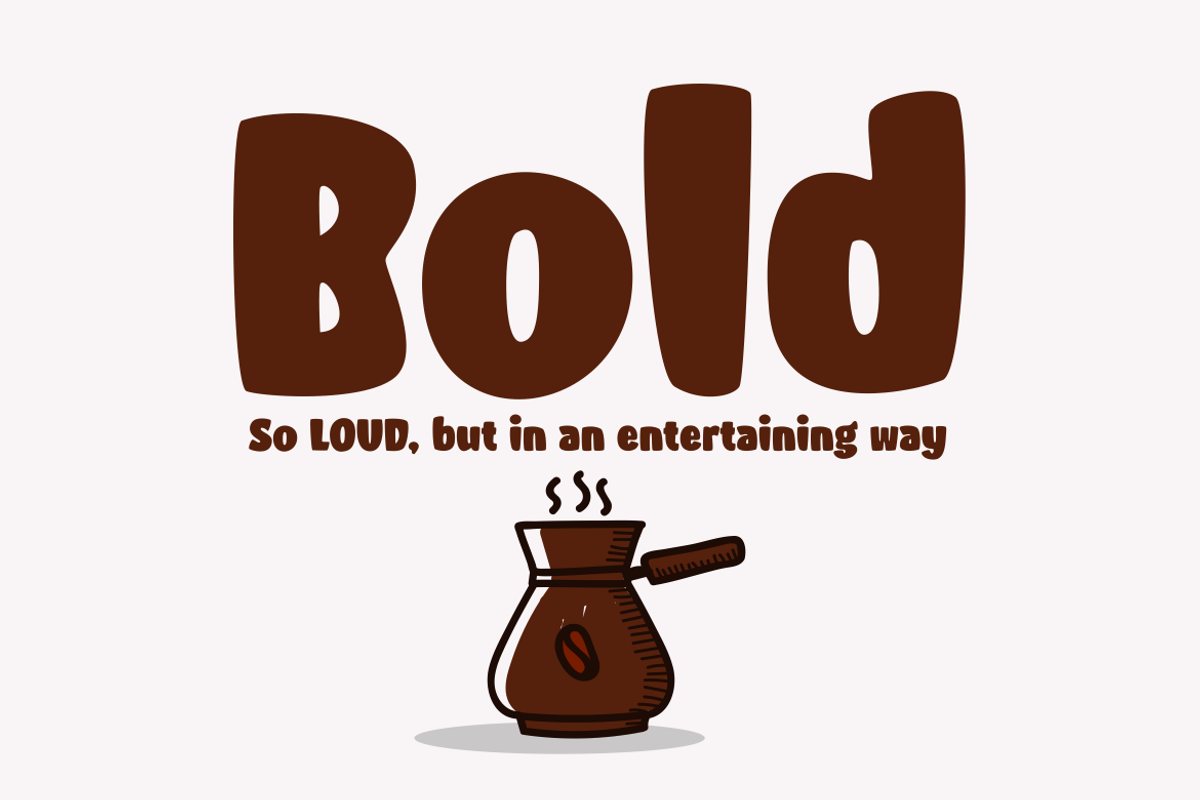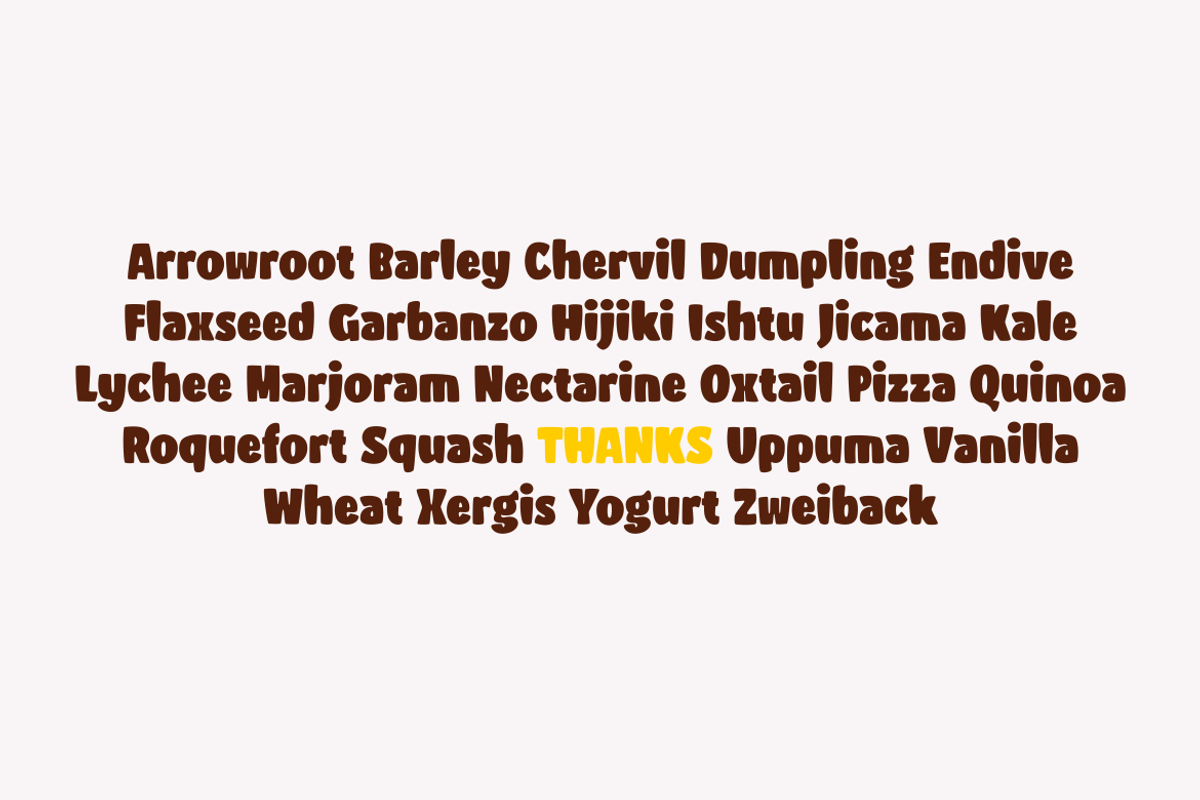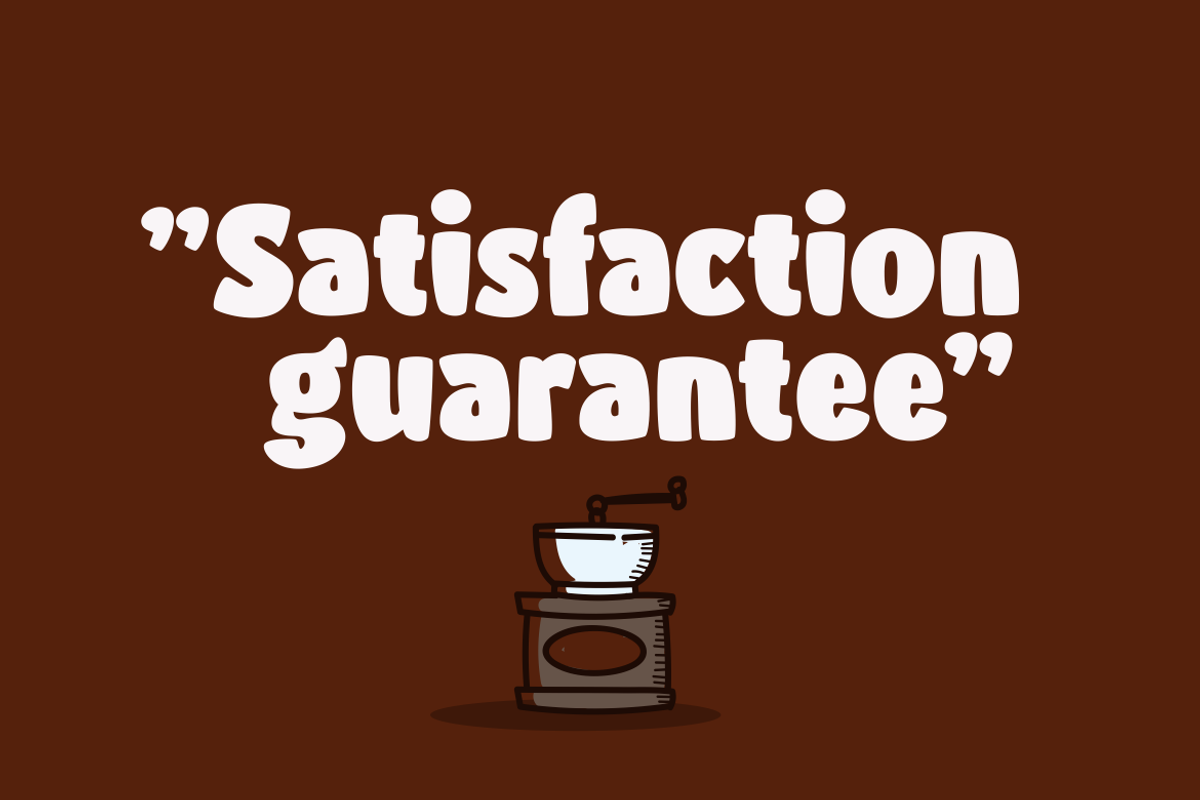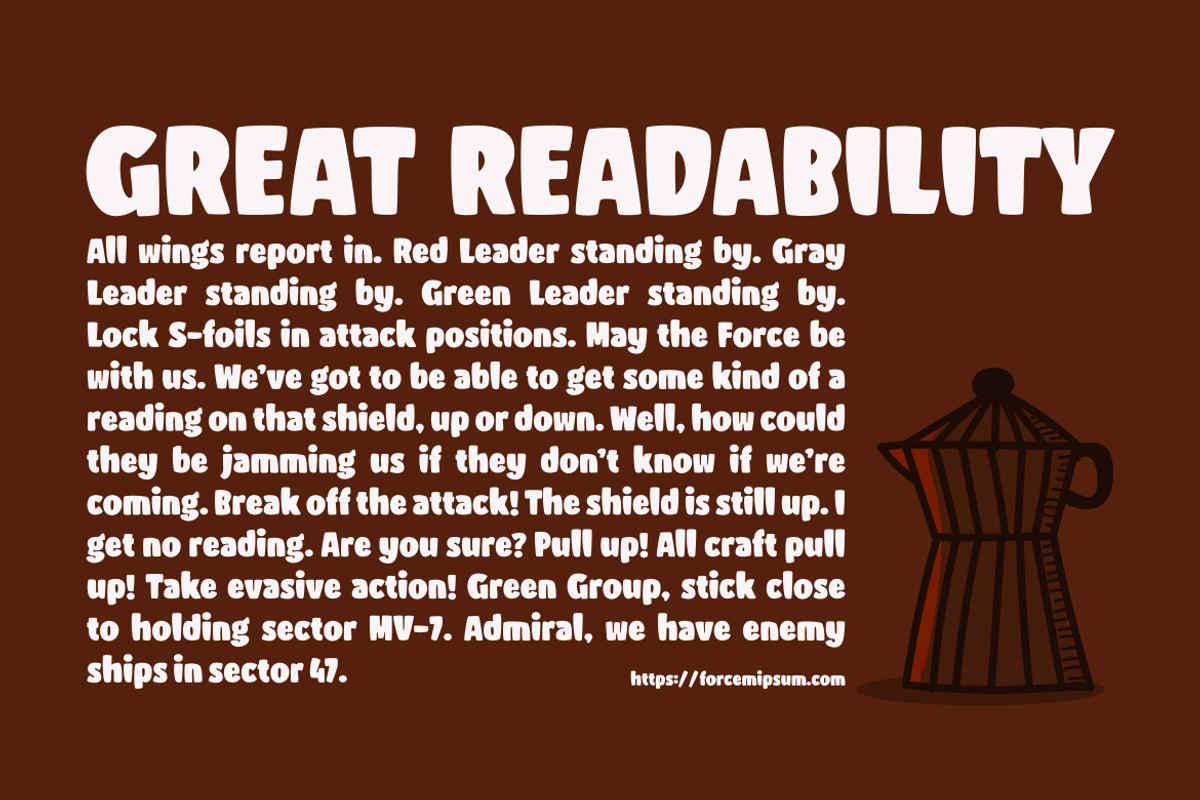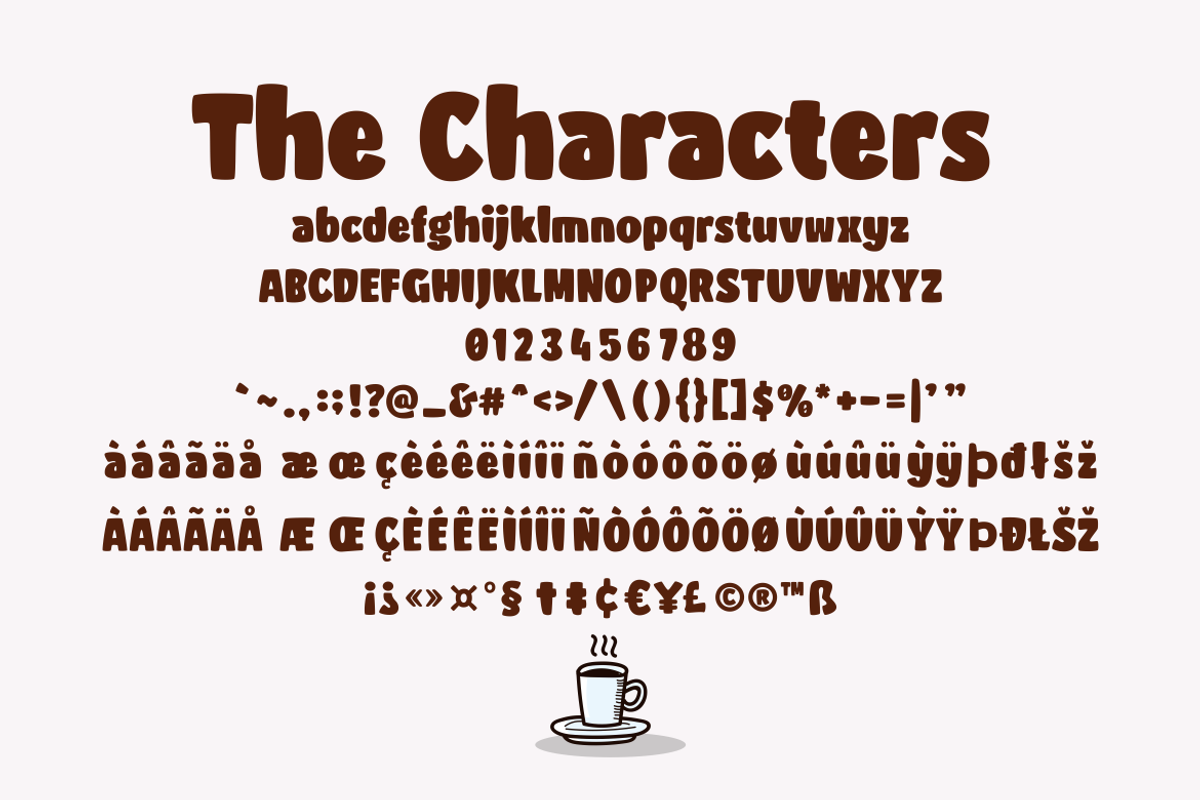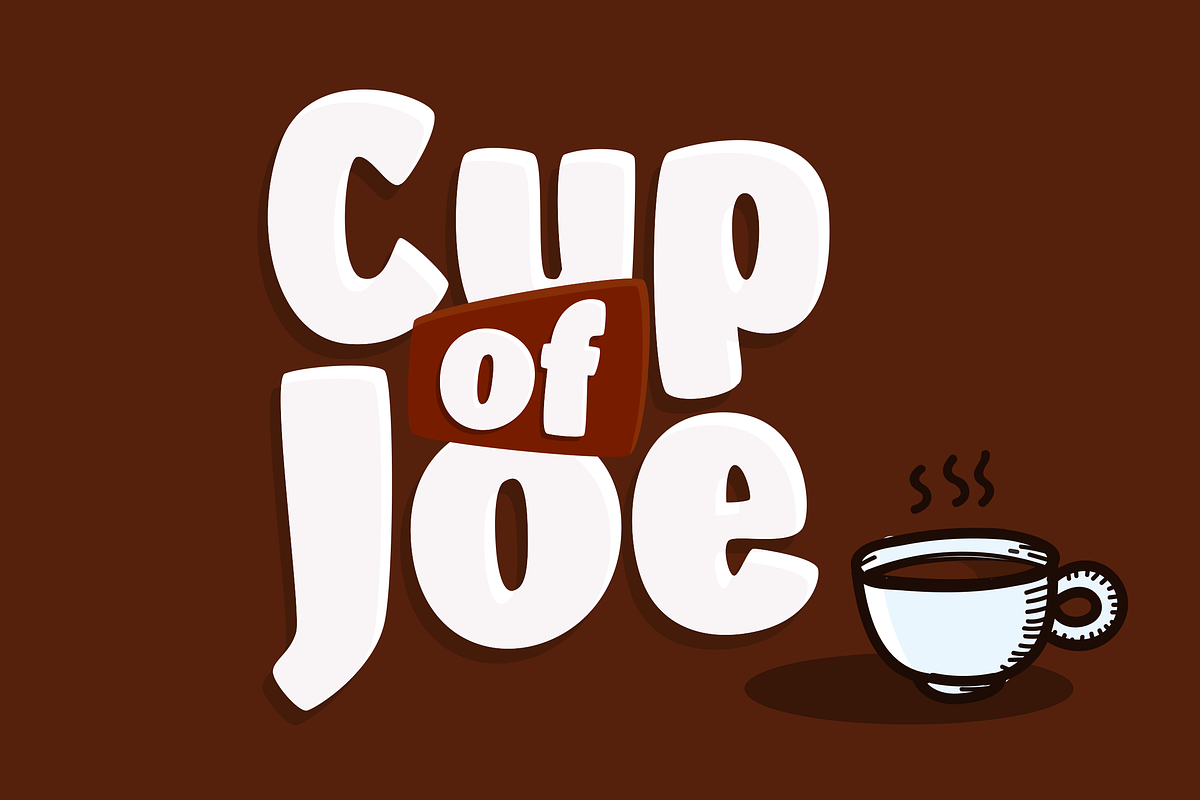
Cup of Joe
Cup of Joe bring smile and happiness toward everything it's written.
The chubby size, rounded corner, breathable space, and great readability...perfect for any message that need to be read out loud.
Suit perfectly for poster, games title, cartoon movie, credit title, magazine, and so on. Have fun !